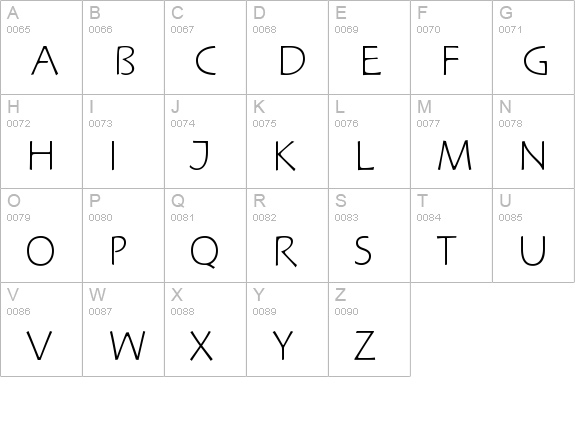
Hoffmann-Light Font Details
Hoffmann-Light is a refined, elegant variant in the Hoffmann typeface family \xE2\x80\x94 well suited to elegant body text, refined sub-headings, and luxury branding.
The Hoffmann-Light font is a modern and elegant typeface that exudes sophistication and style. Its sleek lines and gentle curves make it perfect for a wide range of design projects, from logos to invitations to branding materials. With its light weight and clean aesthetic, Hoffmann-Light brings a sense of refinement to any design it graces. The best part? Hoffmann-Light is available for free download at FontsMarket.com, making it accessible to designers and creatives everywhere. Whether you're working on a personal project or a professional one, this versatile font is sure to elevate your design work and bring a touch of class to your creations. Don't miss out on the opportunity to add Hoffmann-Light to your font collection today!